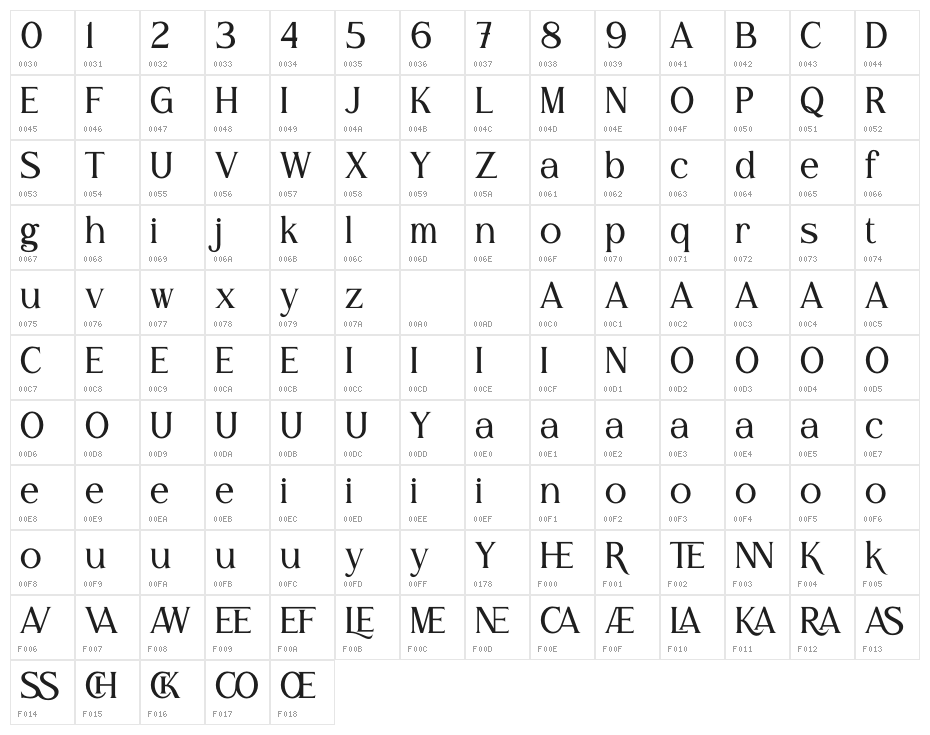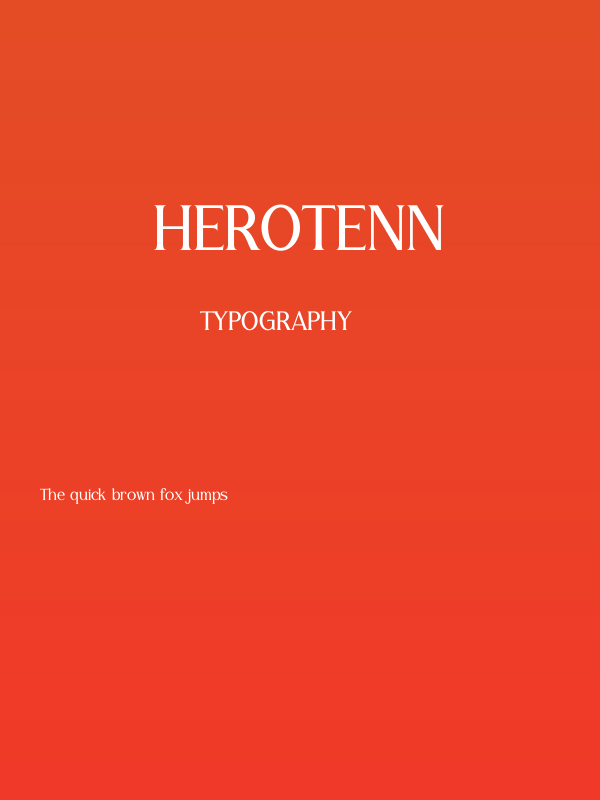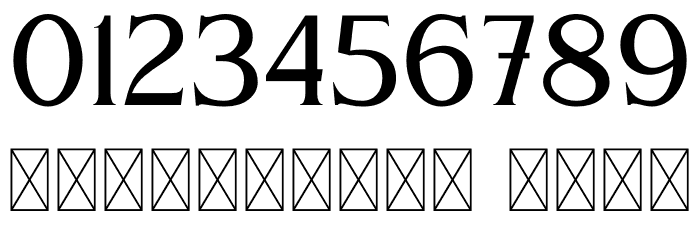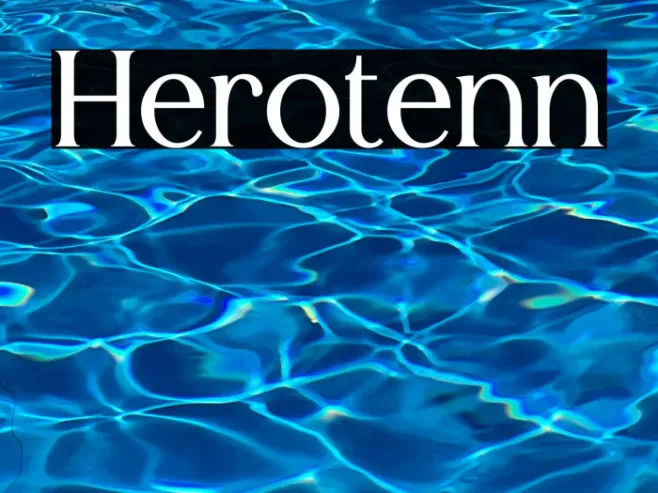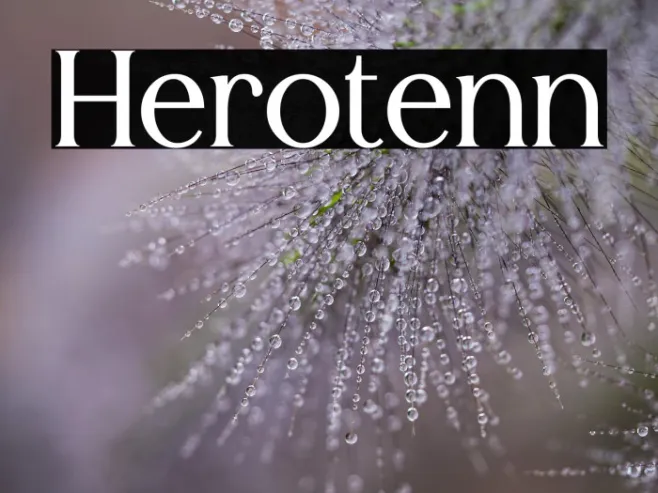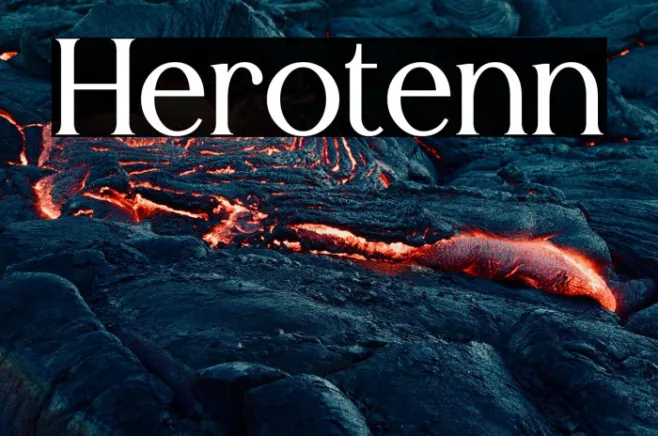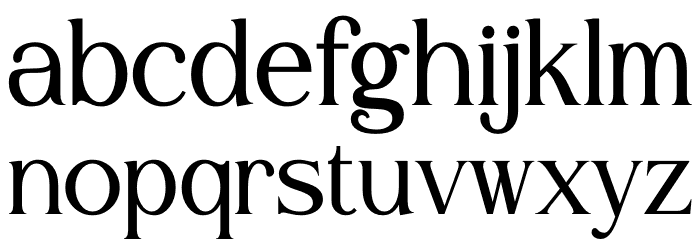
Herotenn Font
Herotenn Description
This font features a classic serif style with elegant, thin lines and a moderate contrast between thick and thin strokes. The uppercase letters are tall and stately, while the lowercase letters maintain a consistent height, providing a harmonious balance. The numerals are clear and easy to read, with a traditional design that complements the overall aesthetic. The font's design is both timeless and versatile, making it suitable for a wide range of applications. The character spacing is normal, ensuring readability and a clean appearance.
| Proposed Projects | Ideal for editorial design, book covers, formal invitations, and branding materials. |